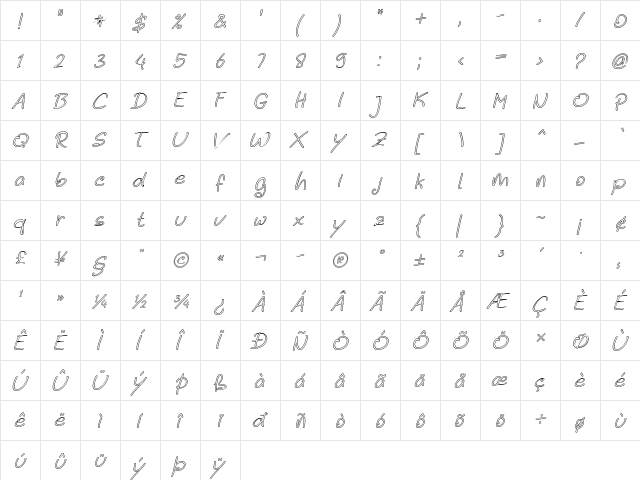
Noela Sherly Outline Italic
Design Context for Noela Sherly Outline Typeface
Noela Sherly Outline brings ornamental detail and strong personality to headlines and identities, where visual impact matters more than quiet functionality. The slanted form adds forward momentum and visual energy.
Font Pairing: Pair with a clean neutral sans-serif for body copy to let Noela Sherly Outline's character lead without overwhelming the composition.
Pro Tip: Use Noela Sherly Outline exclusively at display sizes — it was designed to be seen, not read at length. Let a neutral companion handle body copy.